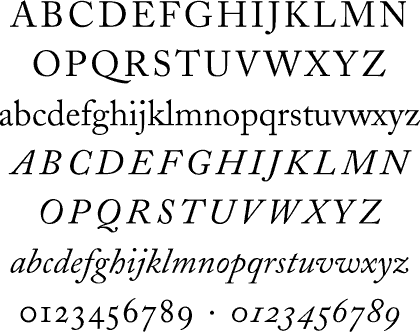
Might be simple for someone out there - but is a real pain for me.
Can anyone tell me what font is used in the attached image?
I think it might be Clifford-Eighteen Ita Alt LF.
Use myfonts.com/WhatTheFont, it will give you 5 options.
If its not imperative that it looks exactly the same I'd go for Plantin. I know its not that font but I can't identify it at mo (its the end of the week afterall!!!)
I know it's not exactly Sylfaen, but it's very similar to it, take a look!
If the above text looks similar to the original one (and I believe they look very much alike), then it must be nothing but Palatino Linotype.;)
all of the above mentioned is probably wrong
it is either Caslon 540 EF Italic, Caslon Italic LET or something pretty much similar
I have to agree - it really looks very similar to Caslon Italic :rolleyes:
Take a look here:
Isn't it your font, scifin:) ?
I agree, it looks like it has been added some bold, perhaps done with Photoshop, because its very close but there are minor differences, but looks just like font weight differences.